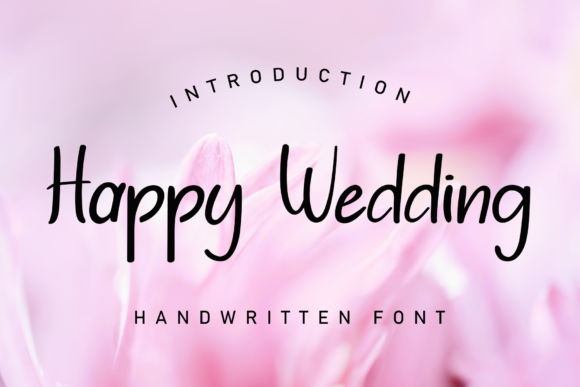
Whether you're a seasoned designer or just starting out, Happy Wedding Font is the perfect addition to your toolkit. This beautiful, hand-lettered script font has a casual and elegant style that will add a touch of sophistication to any project.
With its incredibly versatile style, Happy Wedding Font can be used for a wide range of applications, from wedding invitations and stationery to social media posts and branding. It's also PUA encoded, which means you can access all glyphs and swashes with ease.
So whether you're looking to create stunning wedding invitations, eye-catching social media posts, or simply add a touch of elegance to your designs, Happy Wedding Font is the perfect choice.
This exquisite font is the ideal choice for designers seeking to elevate their creative endeavors. With its innate charm and versatility, Happy Wedding Font will captivate your audience and leave a lasting impression. Its intuitive nature makes it accessible to all skill levels, allowing you to effortlessly craft captivating designs that resonate with your target market.
Indulge in the artistry of Happy Wedding Font and discover endless possibilities for self-expression. Its boundless potential will ignite your imagination and empower you to create designs that evoke joy, elegance, and enduring beauty. Don't let this exceptional font pass you by; embrace its allure and elevate your creations to new heights.